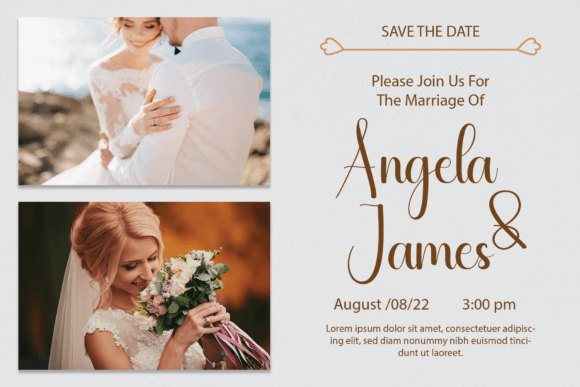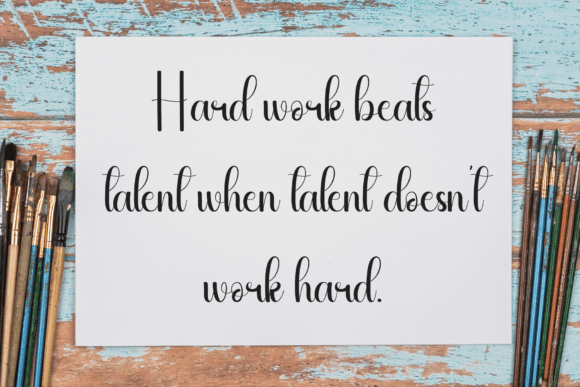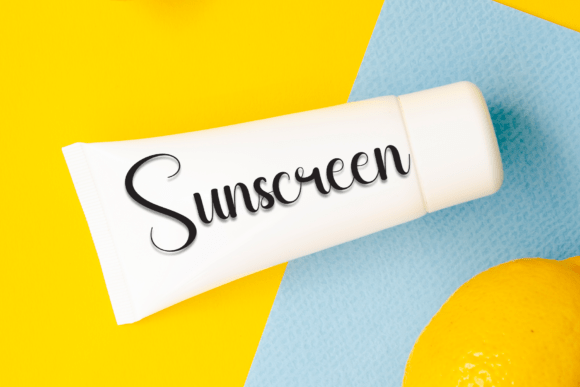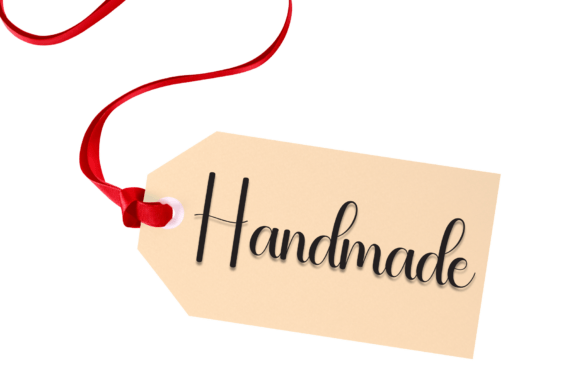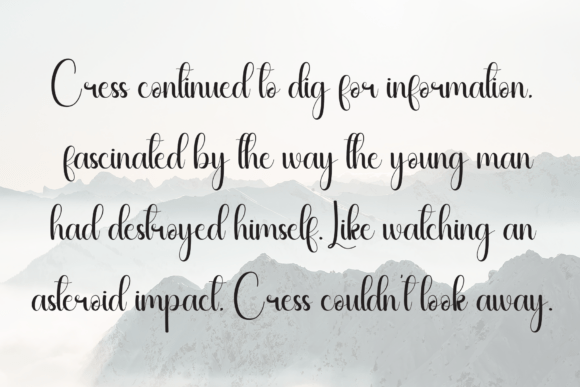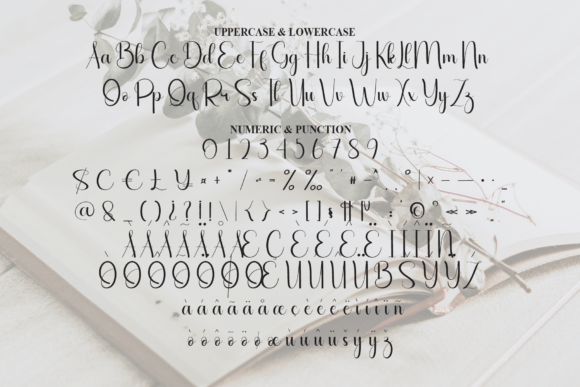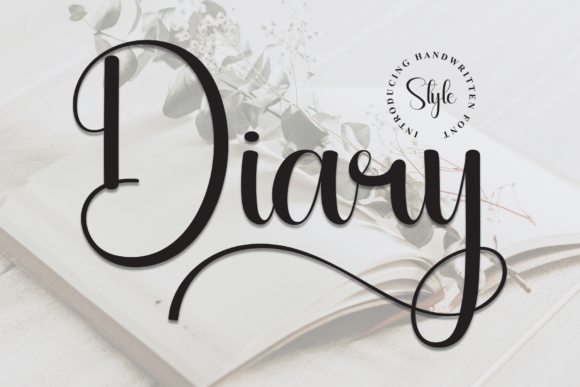
Introducing Diary Font: Elevate Your Designs with Elegance and Fluidity
In the world of typography, few fonts manage to capture the essence of elegance and fluidity as effortlessly as Diary Font. This stylish handwritten script font has been turning heads with its smooth, flowing strokes that create a natural and sophisticated feel, making it an ideal choice for a wide range of design projects. Whether you’re working on branding, invitations, or creative endeavors, Diary Font brings a perfect blend of charm and modernity that can elevate your designs to new heights.
The Essence of Diary Font
Diary Font is more than just a typeface; it’s an expression of artistry and refinement. Its design is characterized by smooth, flowing strokes that mimic the natural flow of handwriting, yet it maintains a level of sophistication that is hard to achieve with handwritten fonts. This balance of natural elegance and modern appeal makes Diary Font versatile and highly adaptable to various design needs.
Key Features of Diary Font
- Elegant and Fluid Strokes: The font’s smooth, flowing strokes are what set it apart, giving it a lively yet refined appearance.
- Natural and Sophisticated Feel: Diary Font strikes the perfect balance between looking naturally handwritten and being sophisticated enough for professional designs.
- Versatility: Its graceful and modern appeal makes it suitable for a variety of projects, from luxury branding to elegant invitations.
- Personal and Artistic Touch: Adds a personal, artistic flair to designs, making them stand out with a unique character.
Use Cases for Diary Font
The versatility of Diary Font makes it an excellent choice for a multitude of design projects. Here are some of the most popular use cases:
- Branding: Elevate your brand’s identity with a sophisticated and elegant font that communicates luxury and refinement.
- Invitations: Whether it’s a wedding invitation, a birthday party invite, or any other special occasion, Diary Font adds a touch of class and personal warmth.
- Creative Projects: From art portfolios to creative blogs, Diary Font can add a personal and artistic touch that resonates with your audience.
- Packaging: Stand out on the shelves with elegant typography that reflects the quality and sophistication of your product.
Tips for Using Diary Font Effectively
To make the most out of Diary Font, consider the following tips:
- Pair with Complementary Fonts: For maximum impact, pair Diary Font with simpler, sans-serif fonts to create a striking contrast.
- Use Appropriately Sized: Ensure the font size is chosen wisely to maintain readability, especially for body text or detailed information.
- Experiment with Colors: While Diary Font looks stunning in classic black and white, don’t be afraid to experiment with colors that match your brand or project’s theme.
Diary Font is a beautiful addition to the world of typography, offering a unique blend of elegance, fluidity, and artistic charm. Its versatility and sophisticated appeal make it an excellent choice for designers and crafters looking to add a personal and refined touch to their projects. Whether you’re aiming for luxury branding, elegant invitations, or distinctive creative projects, Diary Font is sure to elevate your designs and leave a lasting impression.
Embrace the elegance and fluidity of Diary Font in your next design project and experience the difference it can make.